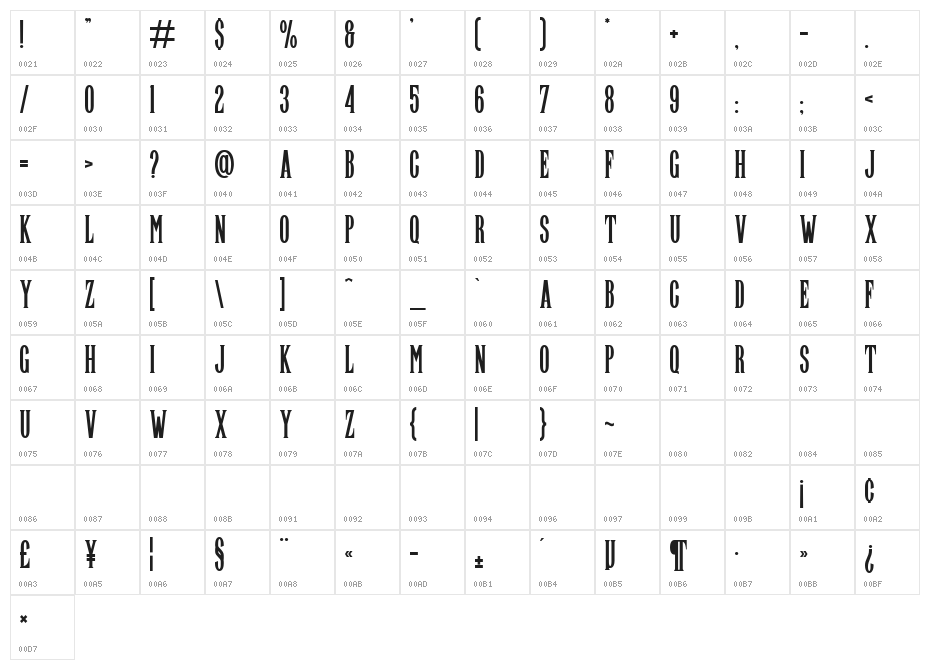
Highwind Font
Highwind Description
This font features a tall and narrow design with high contrast between thick and thin strokes, giving it an elegant and sophisticated appearance. The serifs are pronounced and sharp, adding a touch of classic style. The uppercase letters are particularly elongated, which enhances the vertical emphasis of the typeface. The numerals and special characters maintain the same stylistic features, ensuring consistency across all glyphs. This font's refined and formal look makes it suitable for projects that require a touch of elegance and tradition.
| Width | Condensed |
| Overall Style | Classic |
| Proposed Projects | Ideal for luxury branding, wedding invitations, editorial design, and formal event materials. |